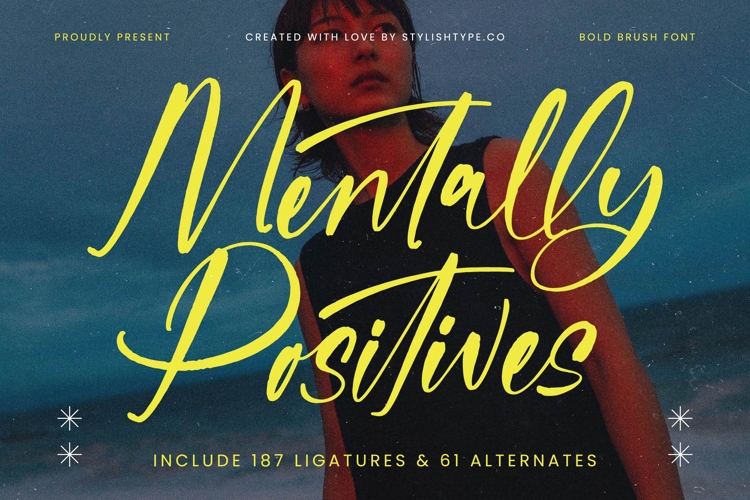
Mentally Positives - Bold Brush Font
Unleash vibrant personality into your designs with Font Mentally Positives - Bold Brush Font Script. This captivating typeface embodies raw energy and authentic handcrafted charm, making an immediate, unforgettable impact. Its bold, expressive strokes exude confidence and originality, perfect for projects demanding dynamic flair and genuine artistry. This script font instantly conveys positivity and creative freedom, elevating visual communication.
Experience unparalleled creative flexibility through its meticulously crafted details. Font Mentally Positives - Bold Brush Font Script is engineered for maximum versatility, featuring an impressive 187 ligatures and 61 alternates. These extensive OpenType features allow seamless customization, enabling designers to craft unique, fluid typography reflecting their vision. Achieve an authentic, organic look, ensuring every display text stands out with a bespoke feel.
Expand your creative reach across borders with exceptional global adaptability. With its extensive multilingual support, Font Mentally Positives - Bold Brush Font Script adapts seamlessly across global markets, making it incredibly versatile for international projects. This ensures your message resonates authentically with diverse audiences worldwide, providing consistent quality and aesthetic appeal regardless of language. It's an indispensable asset for brands with an international presence.